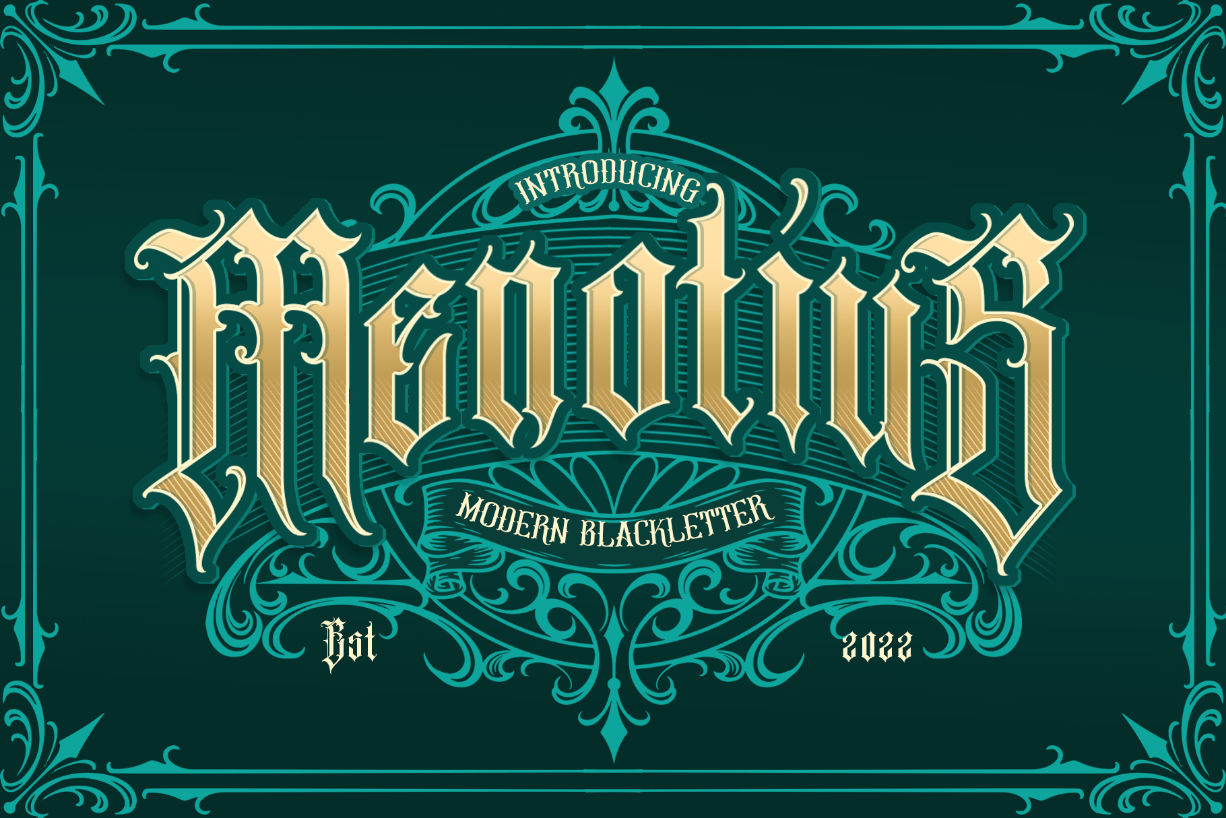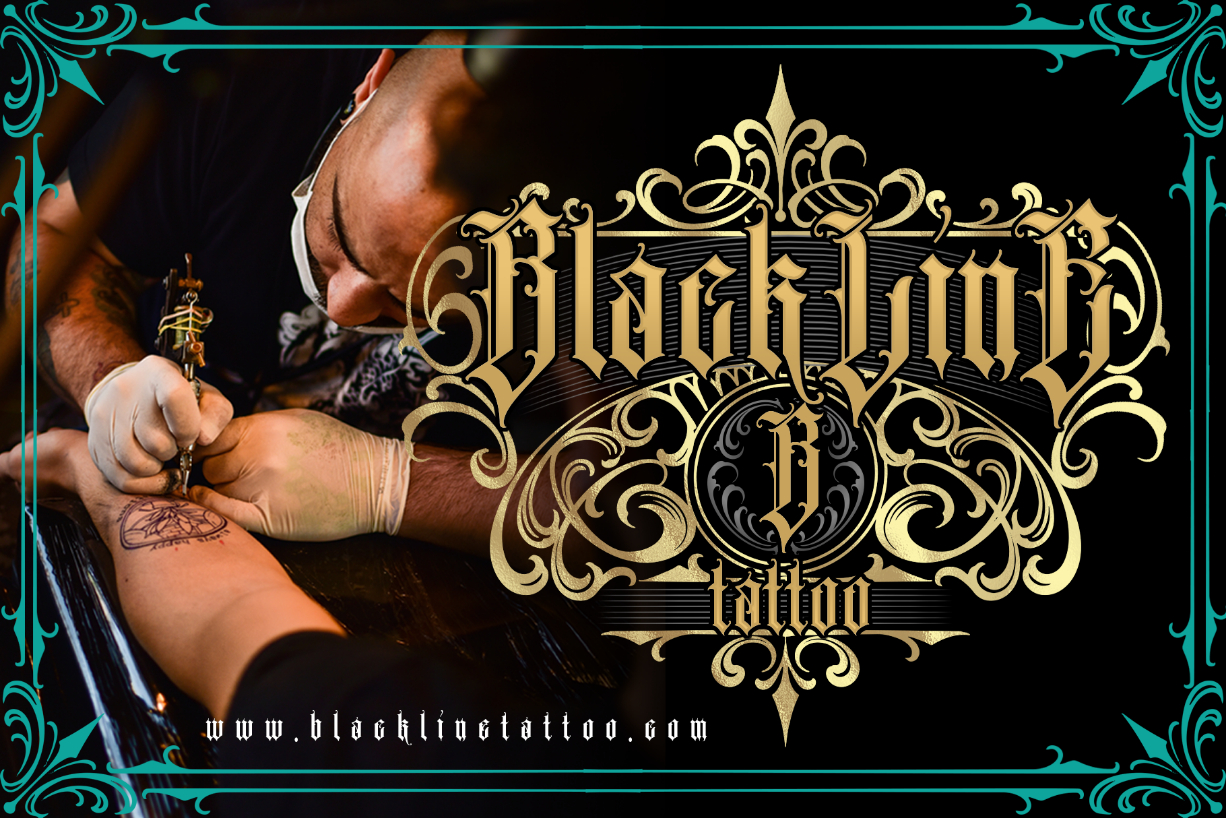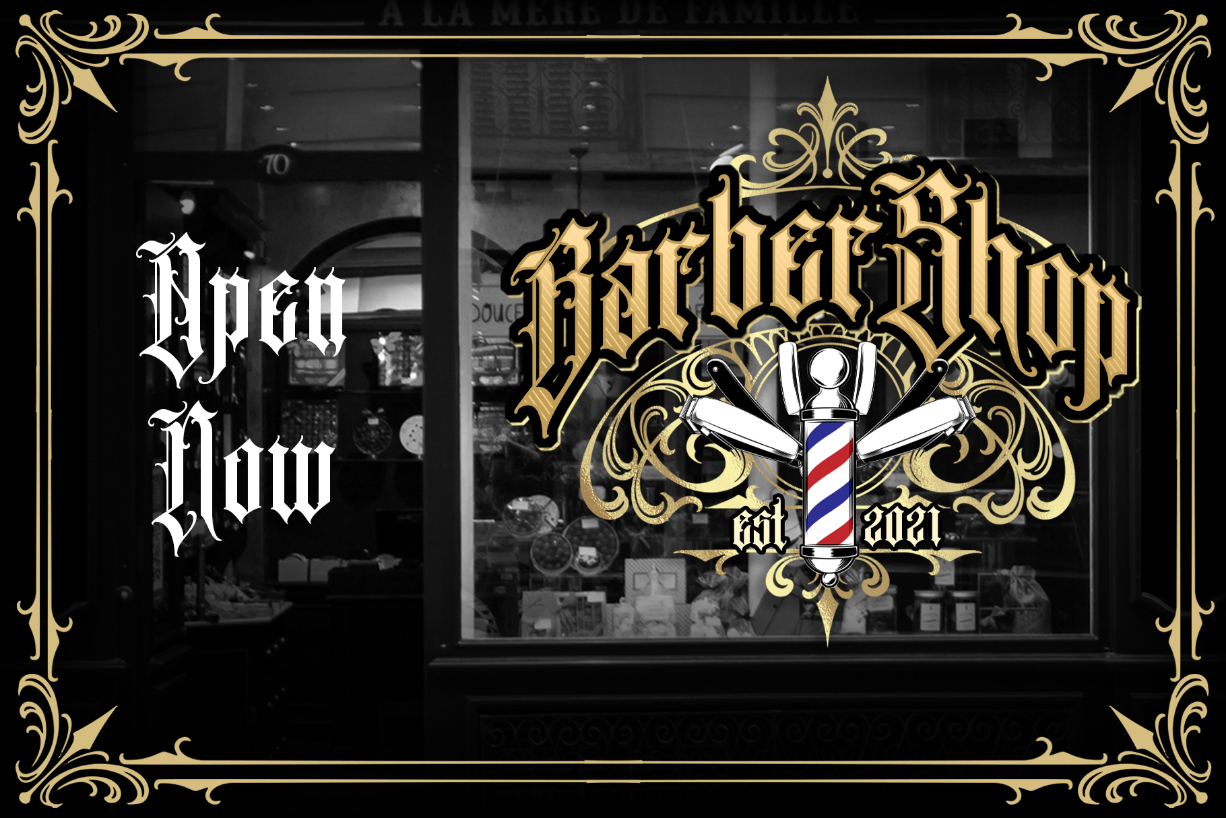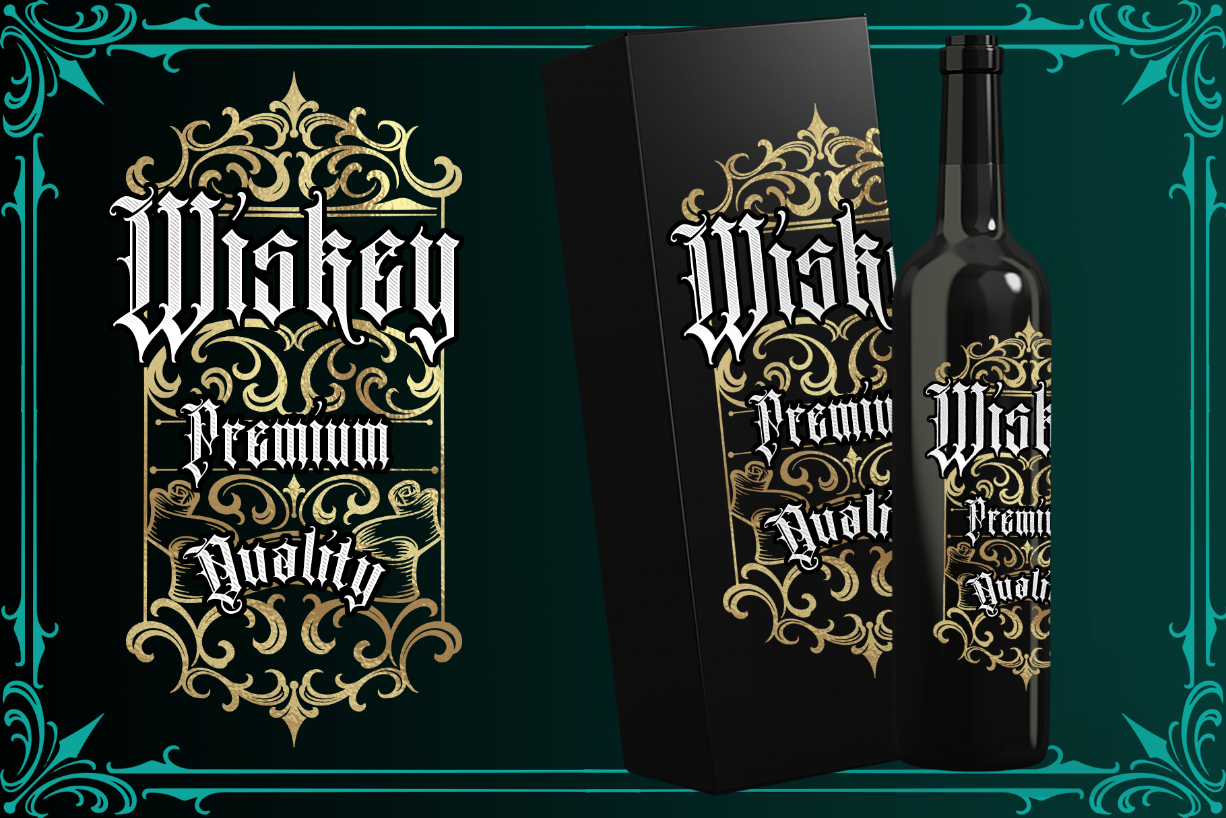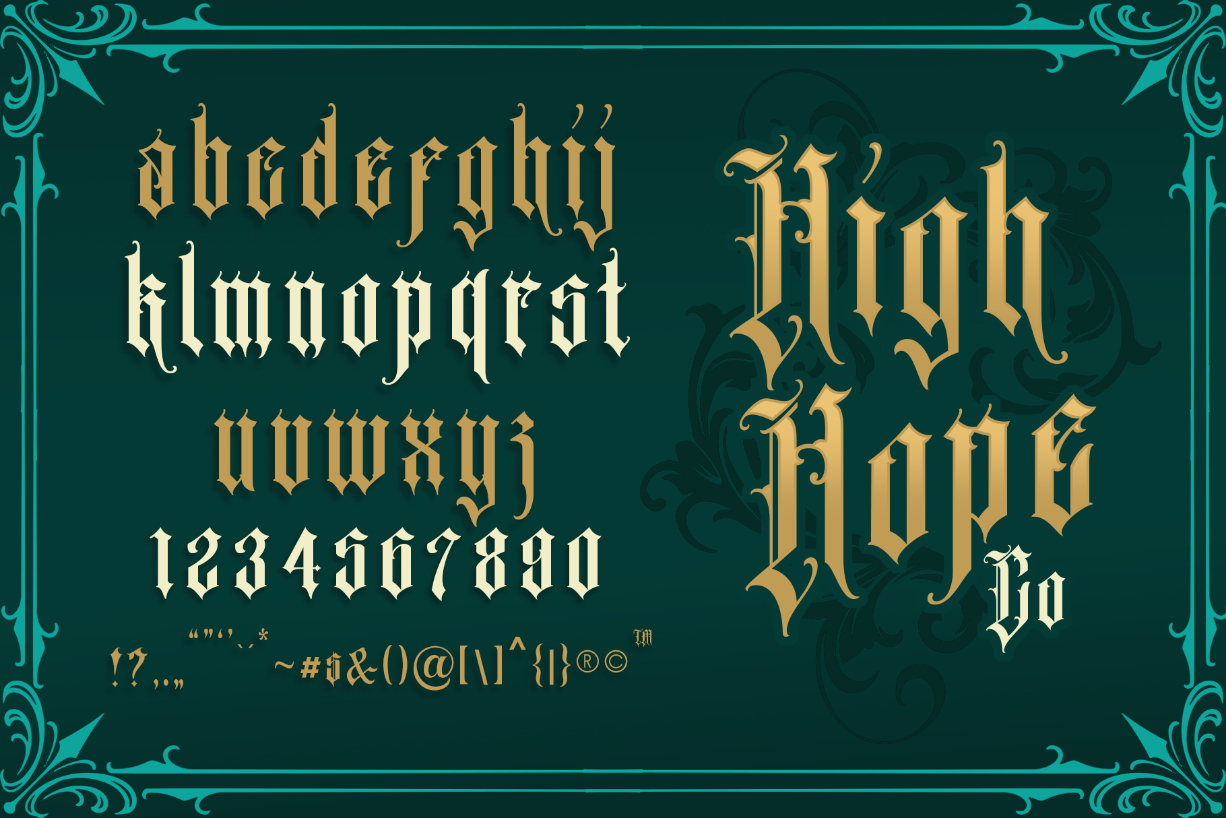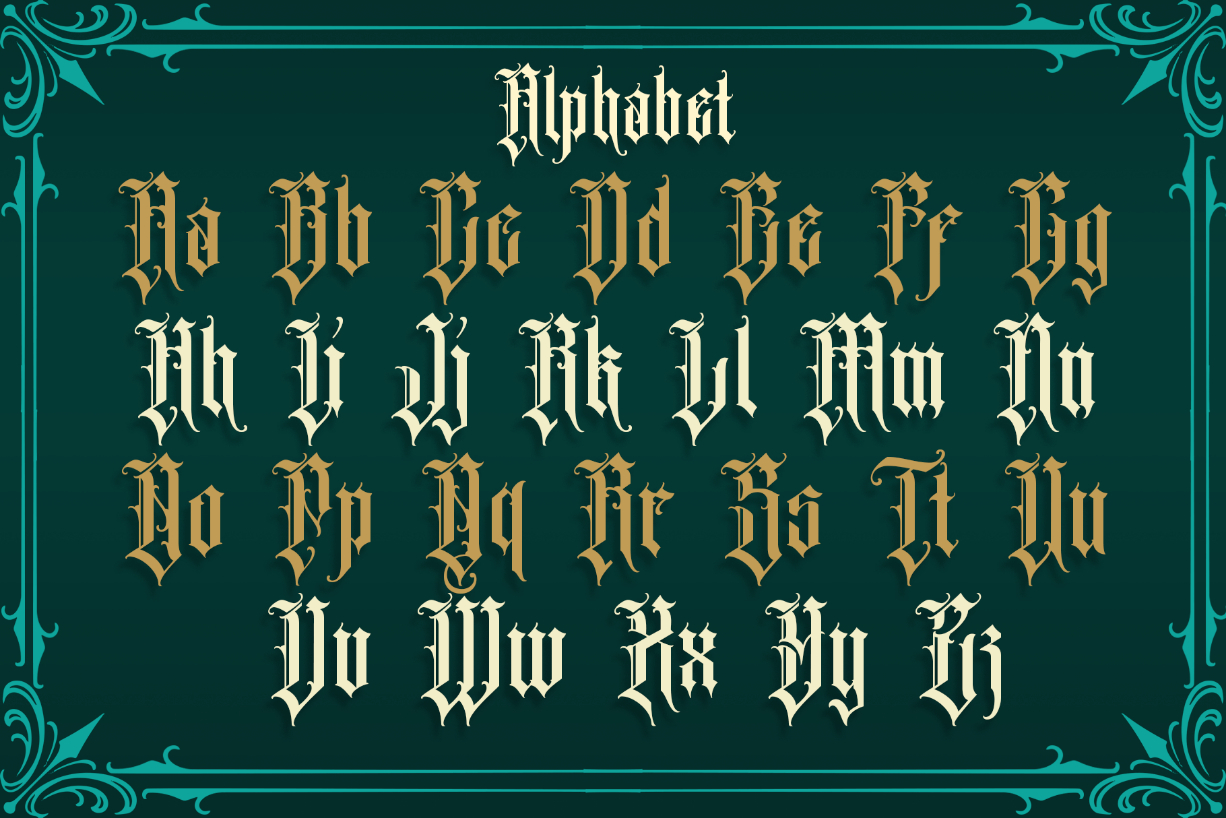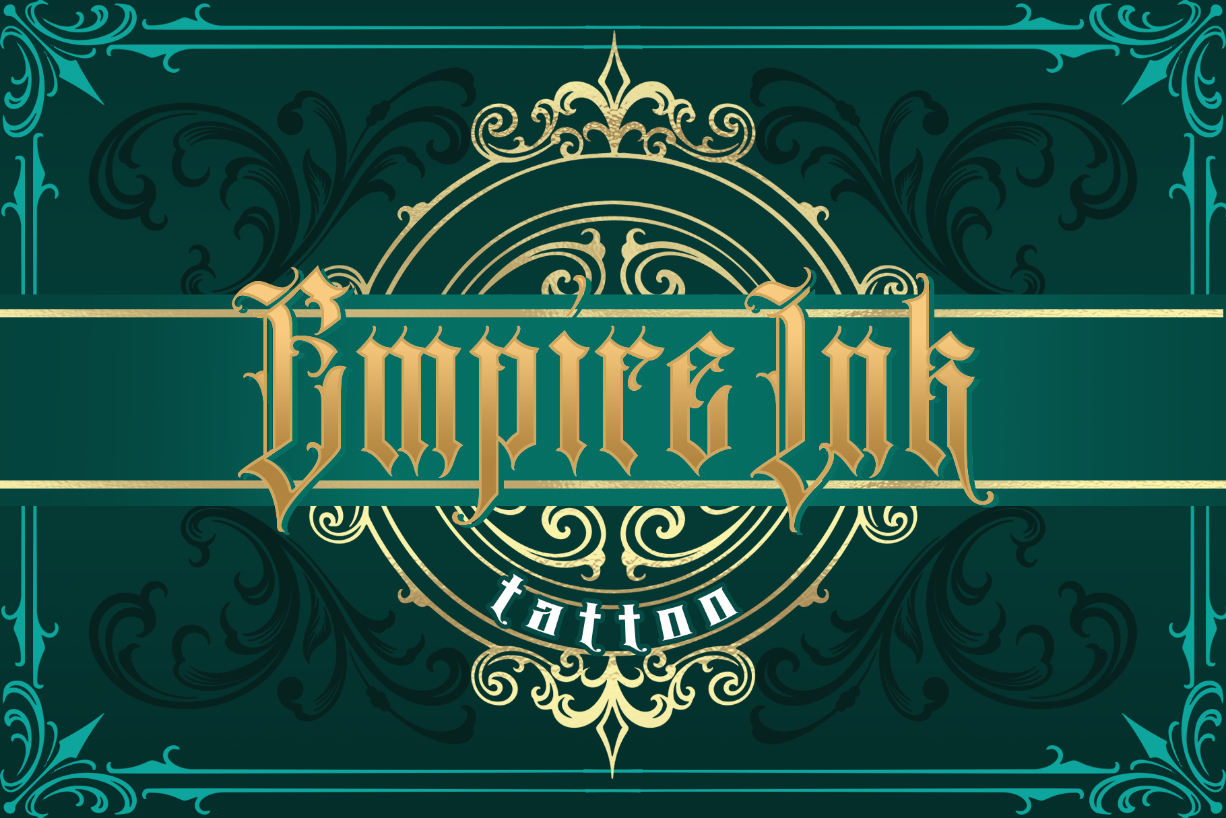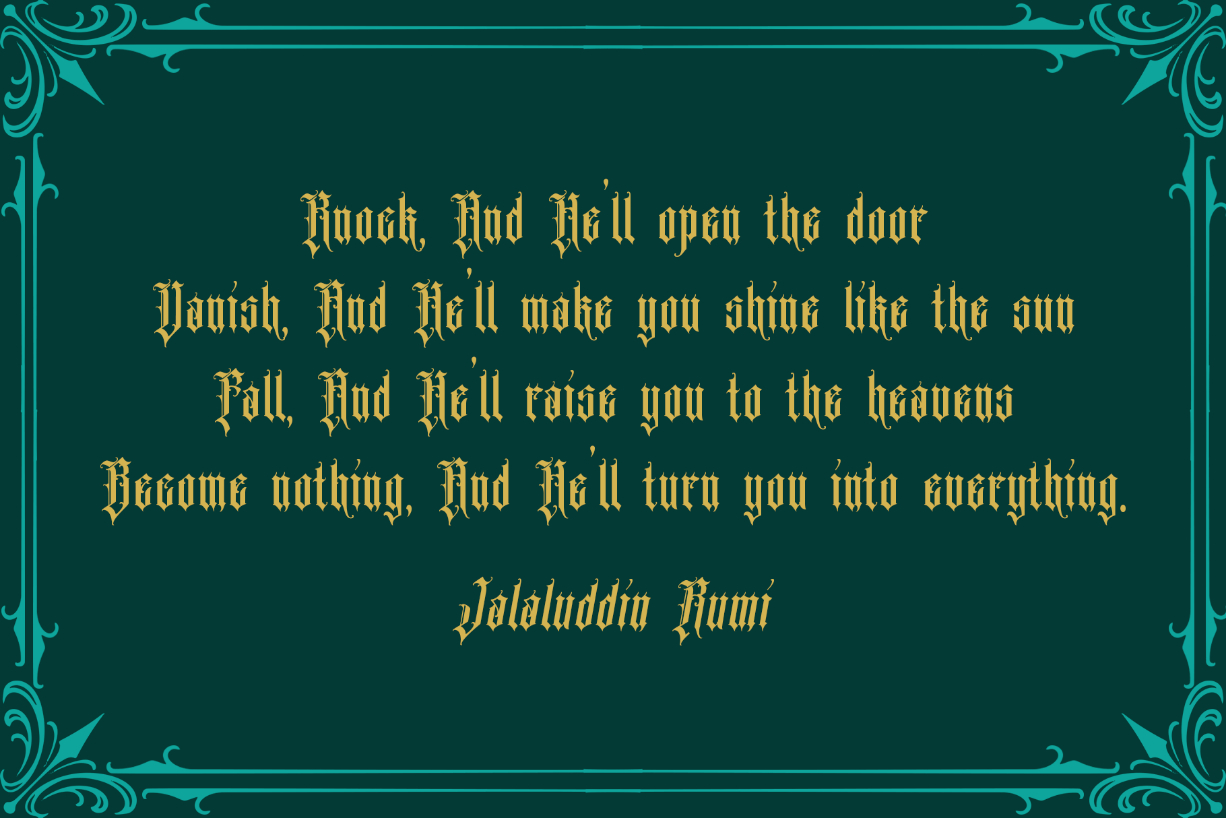
Menotius Font
About Menotius Font
Menotius a highly detailed blackletter font. This original look will appeal to a wide range of crafty ideas, from letterheads and titles, to stationery.